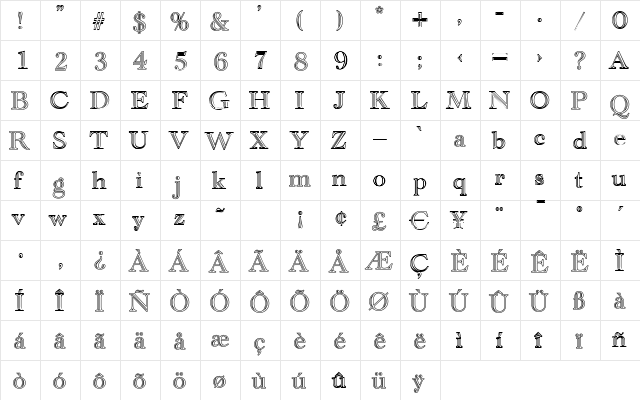
EmmaBeckerOutline Normal
Design Context for EmmaBeckerOutline Typeface
EmmaBeckerOutline brings ornamental detail and strong personality to headlines and identities, where visual impact matters more than quiet functionality.
Font Pairing: Pair with a clean neutral sans-serif for body copy to let EmmaBeckerOutline's character lead without overwhelming the composition.
Pro Tip: Use EmmaBeckerOutline exclusively at display sizes — it was designed to be seen, not read at length. Let a neutral companion handle body copy.